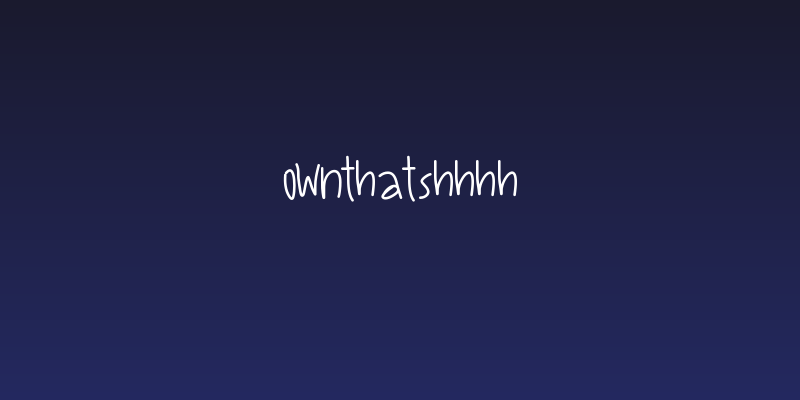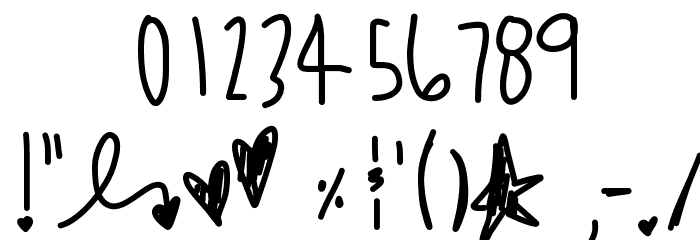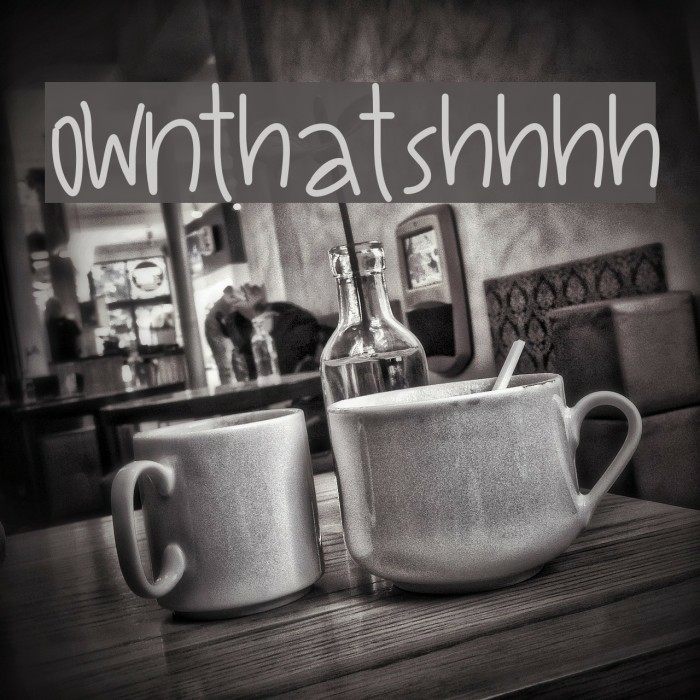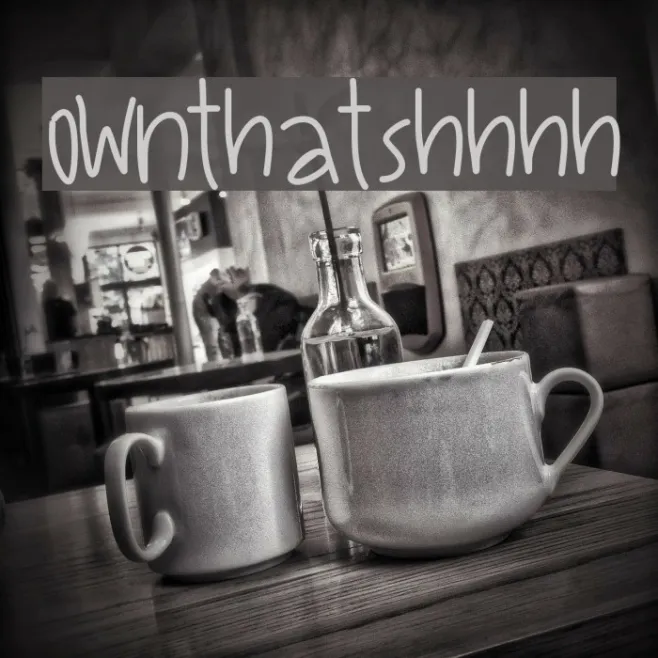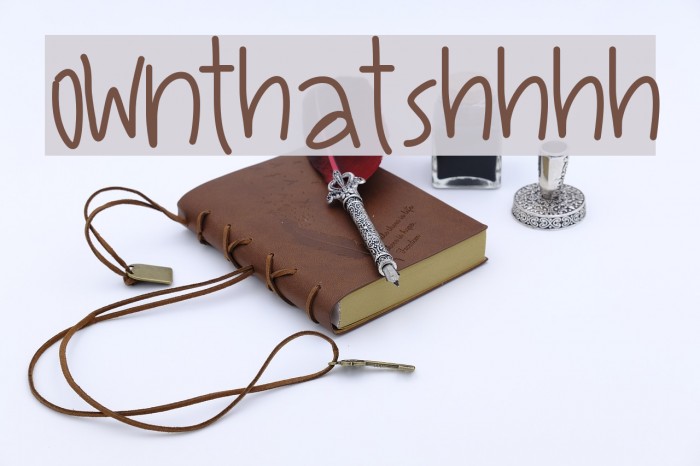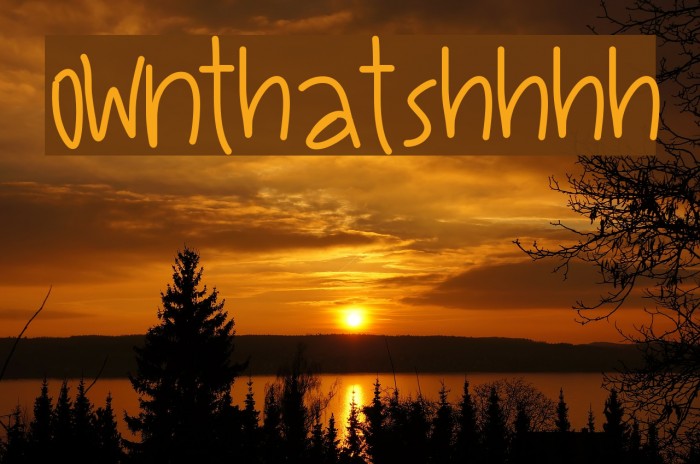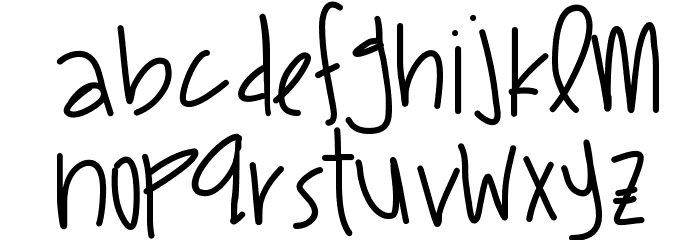
OwnThatShhhh Font
OwnThatShhhh Description
This playful and casual handwritten font exudes a friendly and approachable vibe. The letters are slightly irregular, giving it a natural and authentic handwritten feel. The strokes are smooth and consistent, with a slight tilt that adds to its informal charm. The font includes both uppercase and lowercase letters, numbers, and a variety of special characters, making it versatile for different uses. The overall appearance is lively and energetic, perfect for projects that require a personal touch.
| Use Case | Greeting cards, Personal notes, Children's books |
| Proposed Projects | Ideal for greeting cards, personal notes, children's books, and playful branding. |